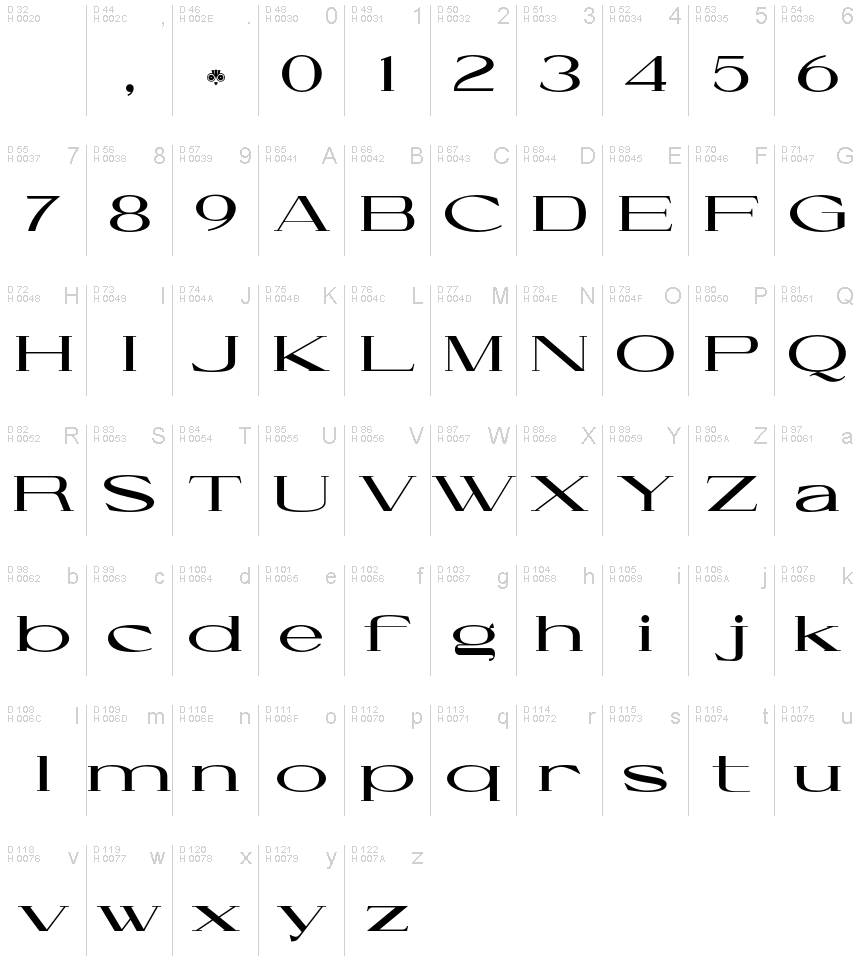
Cellofy Black ExtraExpanded font, part of the Cellofy family by Owlking Project, captivates with its striking serif style and notably expanded width. This free font for personal use is perfect for making bold statements in any design.
Its dramatic presence enhances branding materials, eye-catching headlines, and sophisticated poster layouts. With a unique balance between elegance and power, Cellofy Black ExtraExpanded stands out in graphic design contexts where a commanding yet stylish typeface is essential.